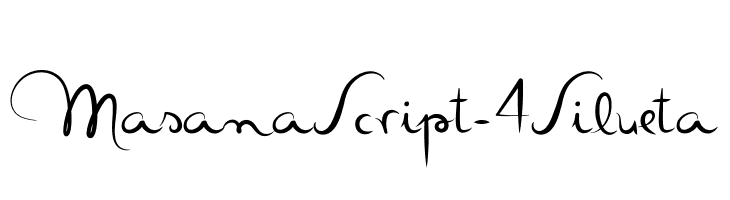
A bold, futuristic font with geometric shapes and a dynamic design.
A playful, hand-drawn font with overlapping lines and an artistic flair.
A dynamic, edgy handwritten font with sharp, angular strokes.
A bold, decorative font with a unique sketch-like pattern filling each character.
A playful, handwritten font with a graffiti-like, artistic style.
A bold, edgy font with sharp, angular strokes and a rebellious feel.
A bold and playful font with quirky, artistic characters.
A bold, stippled font with a playful and modern style.
A bold, decorative font with exaggerated serifs and playful curves.
A bold, spiky font with jagged edges for dynamic designs.
A bold, decorative font with a splattered paint effect for an edgy, urban look.
A playful, splatter-textured font with bold, rounded characters.
A playful, splatter-effect font with a dynamic and artistic style.
A jagged, spooky font with an eerie, torn-paper appearance.
An eerie, wavy stencil font perfect for spooky designs.
A bold, distressed font with a vintage, grunge aesthetic.
A bold, geometric font with a unique spotlight effect created by circular shapes.
A dynamic, handwritten script font with expressive strokes and fluid motion.
A playful, bubble-like font with rounded, inflated letterforms.
A playful, handwritten font with fluid, connected strokes and a casual style.
A bold, playful font with a bubble-like design and halftone texture.
A playful, handwritten font with bold, energetic letterforms.
A bold, textured font with a hand-drawn brush style.
A bold, textured font with a playful, dotted pattern.
A bold, brush-style font with a dynamic and handwritten appearance.
A bold, distressed font with a glitch effect, ideal for modern and edgy designs.
A bold, jagged font with an edgy, rebellious aesthetic.
A whimsical and playful font with curly, looping strokes and decorative swirls.
A bold, distressed font with a 3D effect and textured appearance.
A playful, hand-drawn font with wavy lines and a whimsical style.
A bold, distressed font with a grunge, hand-drawn style.
A distressed, grunge-style font with a hand-drawn appearance.
A decorative script font with elegant, flowing cursive letters and intricate flourishes.
A playful, hand-drawn font with bold, outlined characters.
A bold, textured font with a distressed, grunge-like appearance.